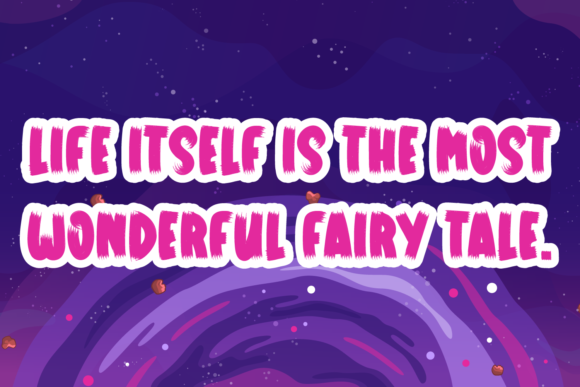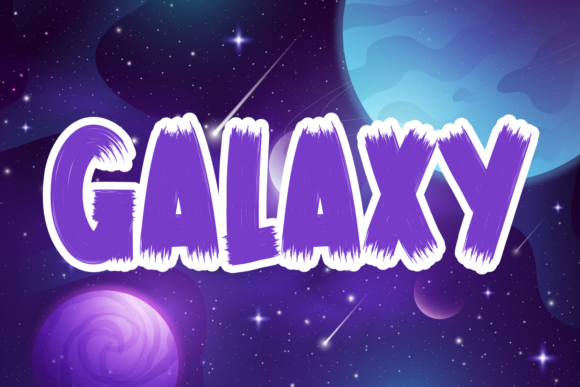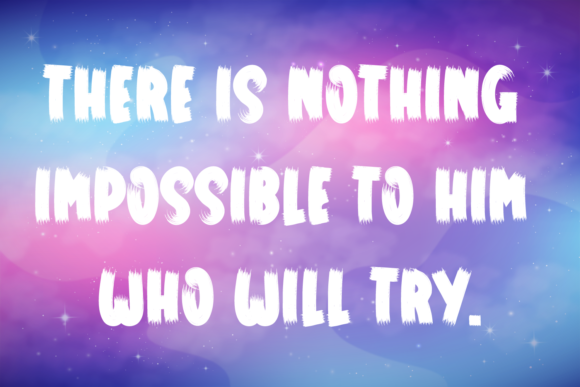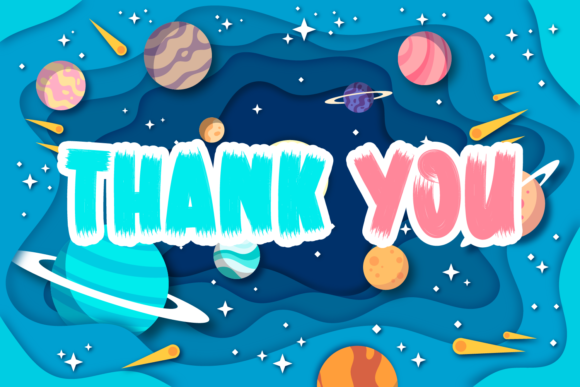
Introduction to Cartoon New Font
Cartoon New is a cute, friendly and fun display font.
Key Features of Cartoon New Font
Why Choose Cartoon New Font?
Cartoon New Font offers exceptional quality and versatility, making it a valuable addition to your design toolkit. Whether you’re creating for personal projects or commercial use, Cartoon New Font delivers professional results.